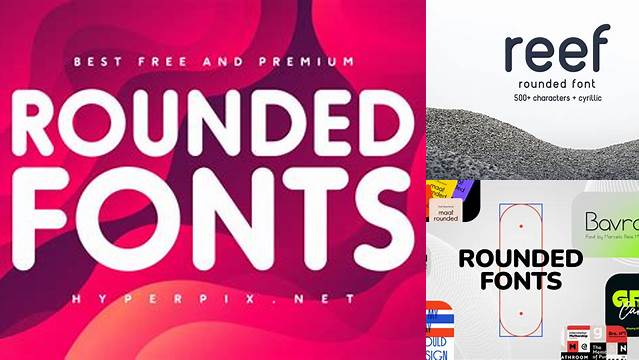
Get Cool Fonts: Rounded Edges In Word - Free & Easy!
Hey guys, ever wanted to spice up your Word documents with some cool fonts that have those smooth, rounded edges? You know, the ones that just make your text pop and look a bit more modern and friendly? Well, you're in the right place! We're gonna dive into how you can snag some free fonts with rounded edges and use them in Microsoft Word. It's easier than you might think, and trust me, it can seriously elevate your documents from basic to brilliant. We'll cover where to find these awesome fonts, how to install them, and how to get them working seamlessly in Word. No tech wizardry required, I promise! So, buckle up, and let's get those rounded-edge fonts rolling!
1. What's the Buzz: Why Rounded Edge Fonts Are Awesome?
Alright, first things first: why bother with rounded edge fonts? Well, the visual appeal is a huge factor. These fonts tend to be softer and more approachable than the stark lines of some traditional fonts. They can instantly give your document a more friendly and modern vibe, which is perfect if you're aiming for a contemporary look. Think about it: a flyer for a kids' event, a friendly newsletter, or even a personal blog post – these fonts just fit right in. They're also incredibly versatile. You can use them in headlines, body text, or even both! The slight curves and softened edges make them easier on the eyes, which is a big win if you're writing something long-form. Plus, they can add a touch of personality to your work. It's a subtle way to stand out from the crowd and show a bit of your own style. So, whether you're a student, a professional, or just someone who loves to tinker with their documents, rounded edge fonts are a great tool to have in your arsenal. They're all about making your words look as good as they read!
1.1. The Psychology of Rounded Fonts
Ever wonder why rounded fonts often feel more welcoming? It's actually got to do with some cool psychology stuff. Our brains naturally associate curves and rounded shapes with things that are safe, friendly, and approachable. Think about a baby's face – it's full of curves! These fonts subtly trigger those positive associations. On the flip side, sharp angles and straight lines can sometimes feel a bit cold or even aggressive. This doesn't mean those fonts are bad, but rounded fonts just have a knack for making things feel more inviting. This is super useful in marketing, design, and even personal branding. Using a rounded font can help build trust and connection with your audience. People are more likely to feel comfortable reading your content or interacting with your brand when the visual elements are soft and friendly. It's like a digital handshake – it's warm, welcoming, and makes people want to stick around. So, next time you're picking a font, think about the message you want to convey and how a rounded edge font could help you nail it.
1.2. Rounded Fonts vs. Other Font Styles
Let's put rounded fonts in perspective and see how they stack up against other font styles. Compared to serif fonts (like Times New Roman), which have those little feet or strokes at the ends of letters, rounded fonts often feel more casual and modern. Serifs can be great for formal documents, but they might not be the best choice if you're going for a youthful or playful vibe. Then there are sans-serif fonts (like Arial or Helvetica), which lack those serifs. These are generally clean and easy to read, but they can sometimes feel a bit bland. Rounded fonts bring a touch of personality to the table that sans-serifs might lack. And of course, there are the script fonts, which mimic handwriting. These can be elegant, but they're not always the most readable, especially in long blocks of text. Rounded fonts strike a great balance – they're usually easy to read and still manage to inject some personality. So, it really boils down to what kind of message you want to send. Rounded fonts are a safe bet for anything where you want to create a friendly, approachable feel.
2.3. Font Squirrel: Quality Over Quantity
Font Squirrel is a bit more curated than DaFont, focusing on high-quality, free fonts. If you want a selection that's been vetted for quality and license, Font Squirrel is a great choice. The site has a great interface that allows you to easily browse different font categories and even view fonts in action. They also have a font identifier tool, which is awesome if you've seen a font somewhere and want to know what it is. Font Squirrel's fonts are all free for commercial use, which is a major plus if you're using them for any kind of business project. They have a great selection of rounded fonts, each one carefully chosen. It's an excellent resource for finding fonts that are both aesthetically pleasing and legally sound.
2.4. Other Font Resources to Explore
Beyond the big three (Google Fonts, DaFont, and Font Squirrel), there are plenty of other places to unearth free fonts with rounded edges. Websites like Behance and Dribbble, which showcase design work, often have designers offering free fonts as part of their portfolio. Check out websites dedicated to free resources, where designers share their work with the public. Keep an eye on design blogs, too. They often round up free fonts in their articles. The more resources you explore, the better chance you'll find the perfect font for your Word document.
So, you've found the perfect rounded-edge font? Awesome! Now, let's get it installed so you can use it in Word. The process is super simple, but let's walk through it step-by-step.
9.4. Final Thoughts and Call to Action